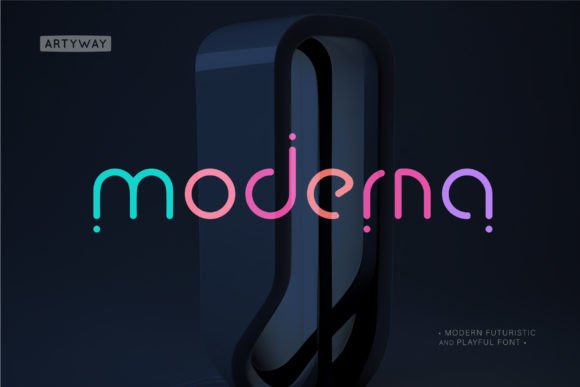
Introducing Moderna Font, the ultimate choice for those who want to make a bold statement and captivate their audience. This futuristic and eye-catching display font is designed to grab attention and leave a lasting impression.
With its sleek and sharp letterforms, Moderna Font exudes a sense of modernity and innovation that is perfect for various industries. Whether you're in technology, gaming, sci-fi branding, or editorial design, this font will elevate your project to new heights.
Moderna Font is more than just a font - it's a powerful tool that allows you to communicate your message with style and sophistication. Its unique and edgy design sets it apart from the crowd, making it the perfect choice for those who crave originality and want to stand out from the competition.
But what truly sets Moderna Font apart is its versatility. It's not just a font for everyday use - it's the best font for your 2-color logo. With its captivating aesthetic, this font will ensure that your logo leaves a lasting impression on your audience. Whether you're a start-up or an established brand, Moderna Font will give your logo the edge it needs to succeed.
Created by the talented designers at artyway, Moderna Font is the result of meticulous craftsmanship and attention to detail. Its flawless execution and seamless curves make it a true work of art. You can trust that every character has been carefully crafted to perfection.